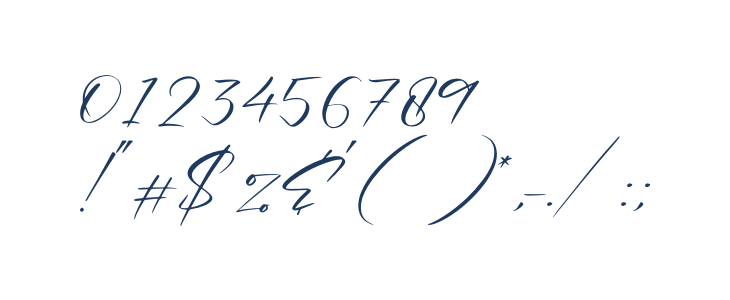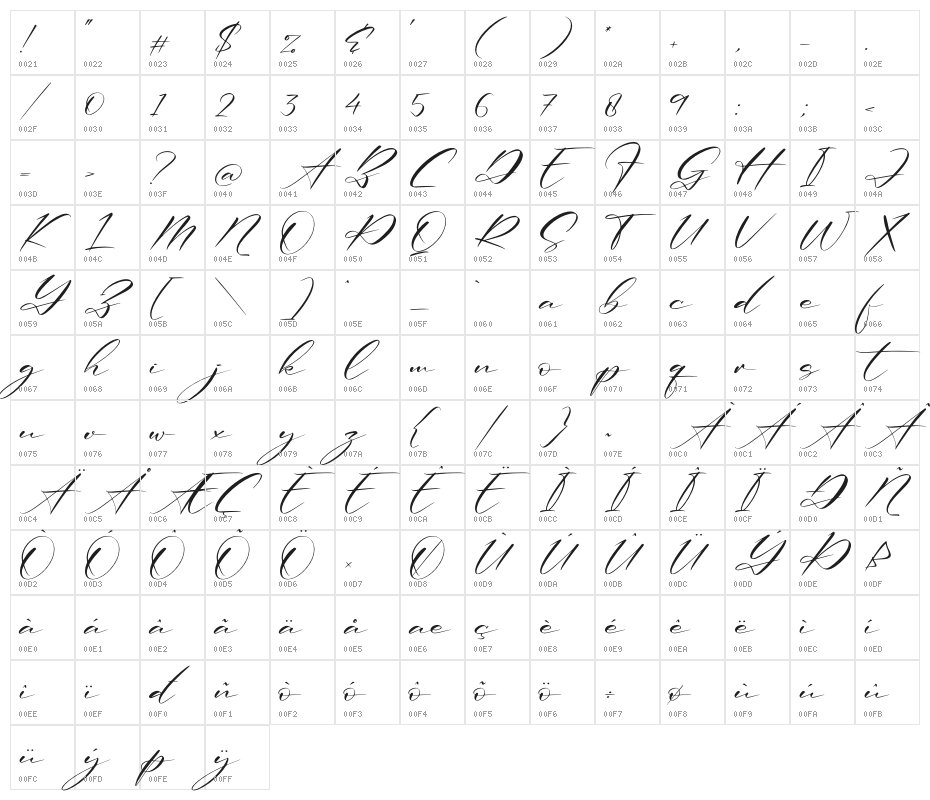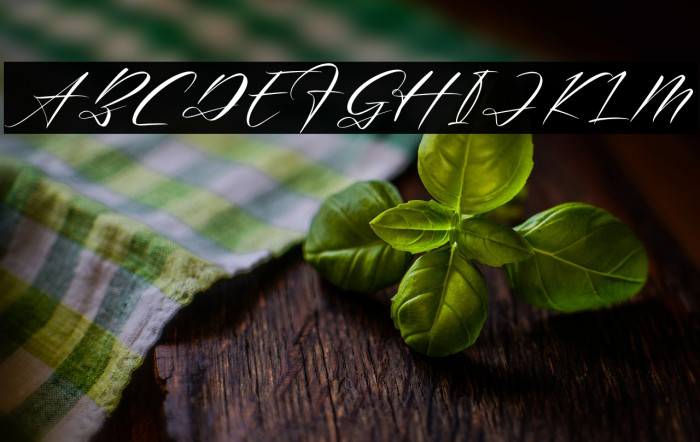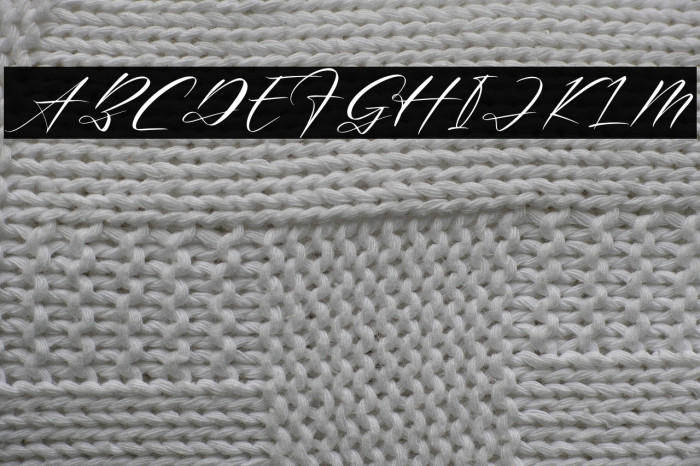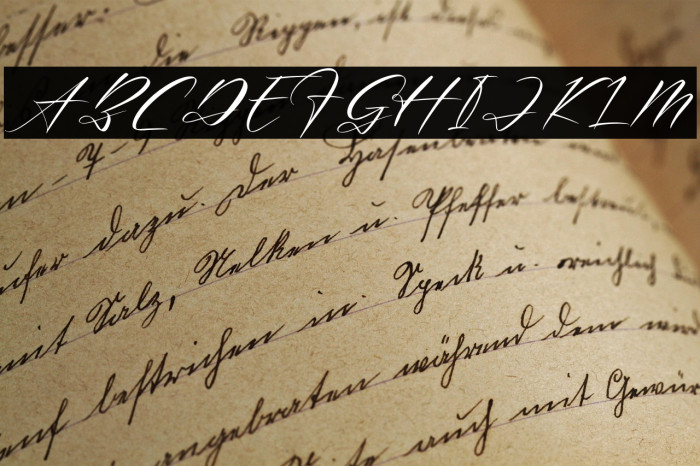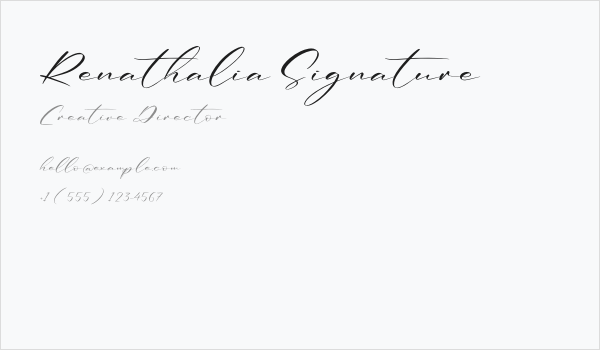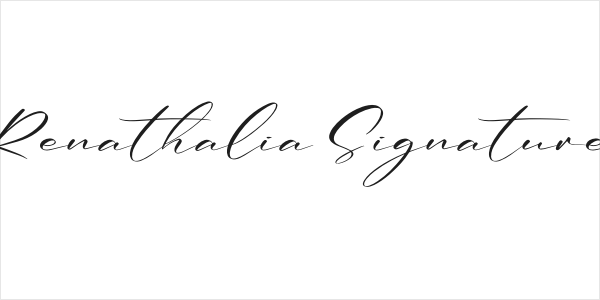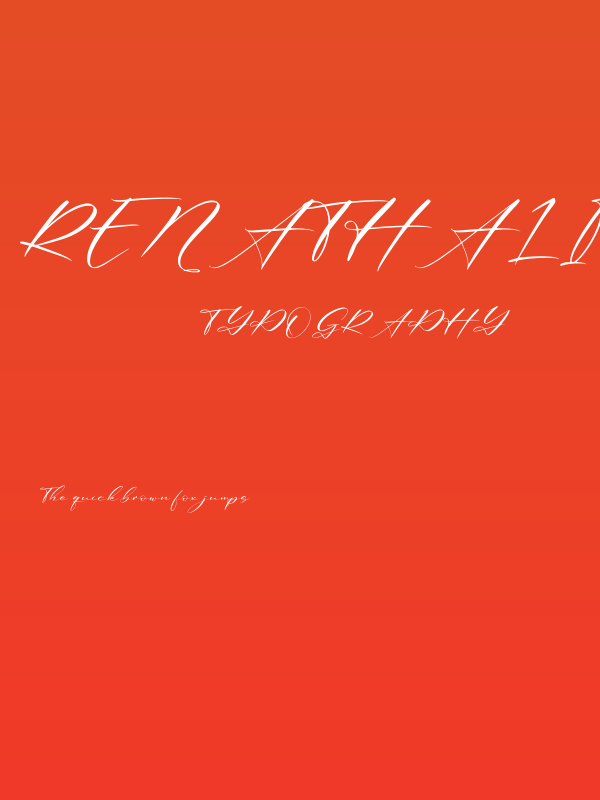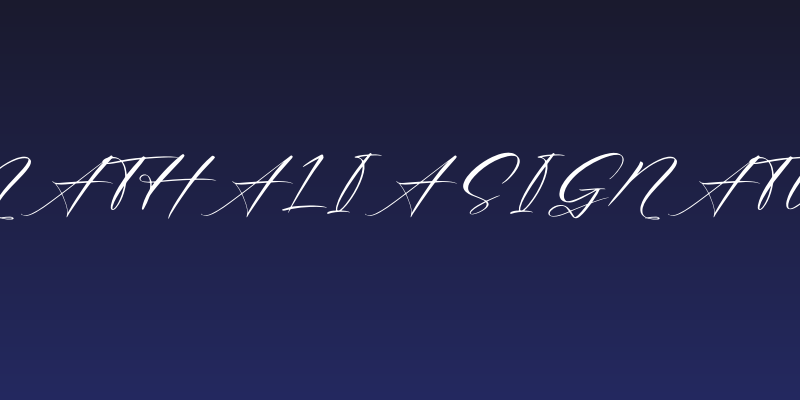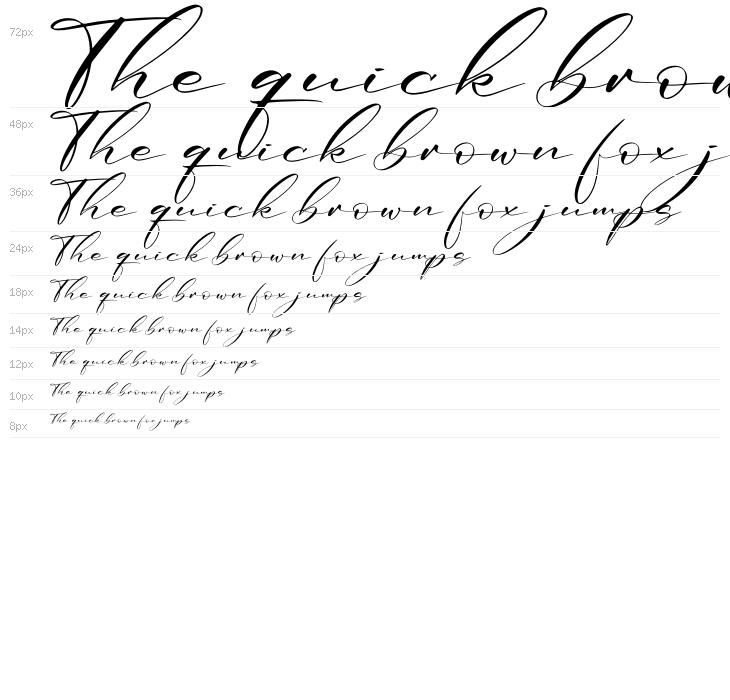
Renathalia Signature Font
Renathalia Signature Description
This elegant script font features fluid, cursive strokes that mimic the natural flow of handwriting. The letters are connected, creating a seamless and sophisticated appearance. The uppercase letters are slightly more ornate, with flourishes that add a touch of elegance. The lowercase letters maintain a consistent style, enhancing readability while preserving the font's artistic flair. The numerals and special characters are designed to match the overall aesthetic, ensuring a cohesive look across all text elements. This font is ideal for projects that require a personal, handwritten touch.
| Overall Style | Elegant, Handwritten |
| Proposed Projects | Ideal for wedding invitations, personal branding, greeting cards, and elegant logos. |